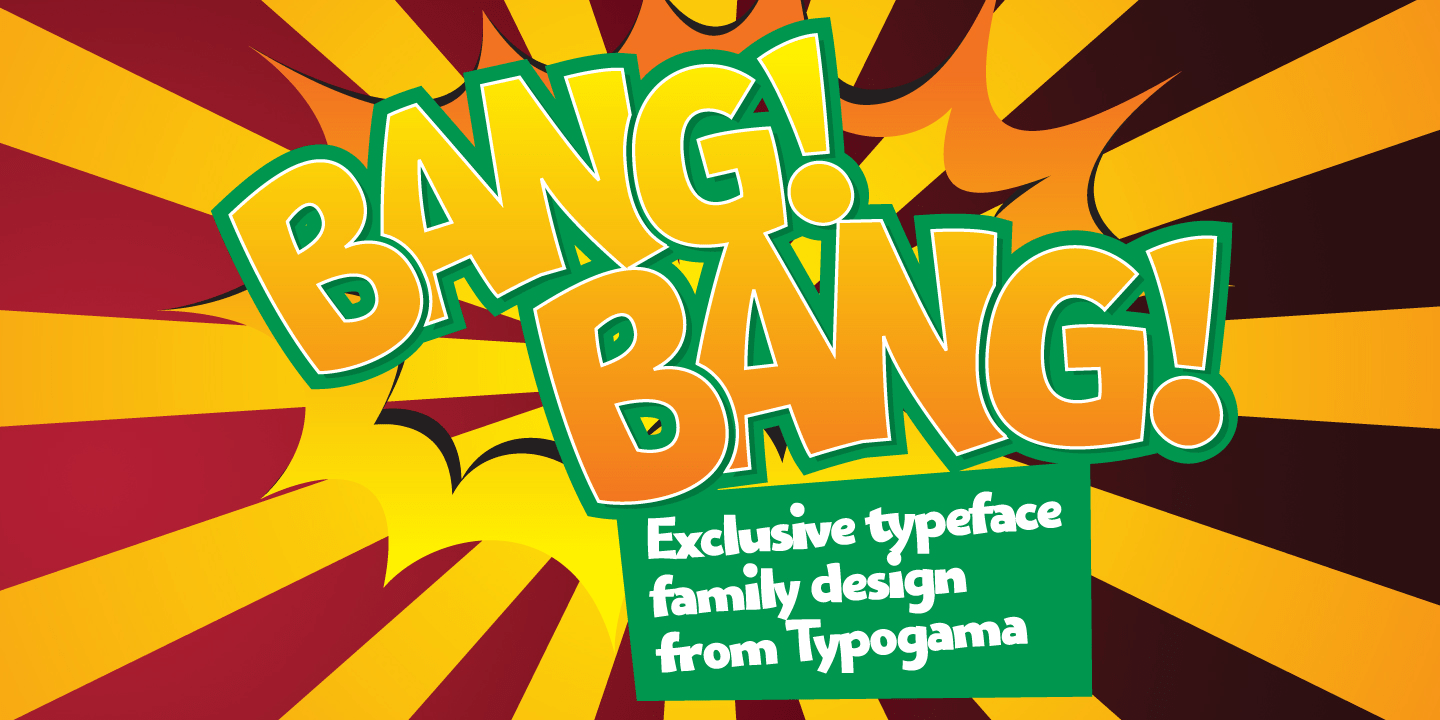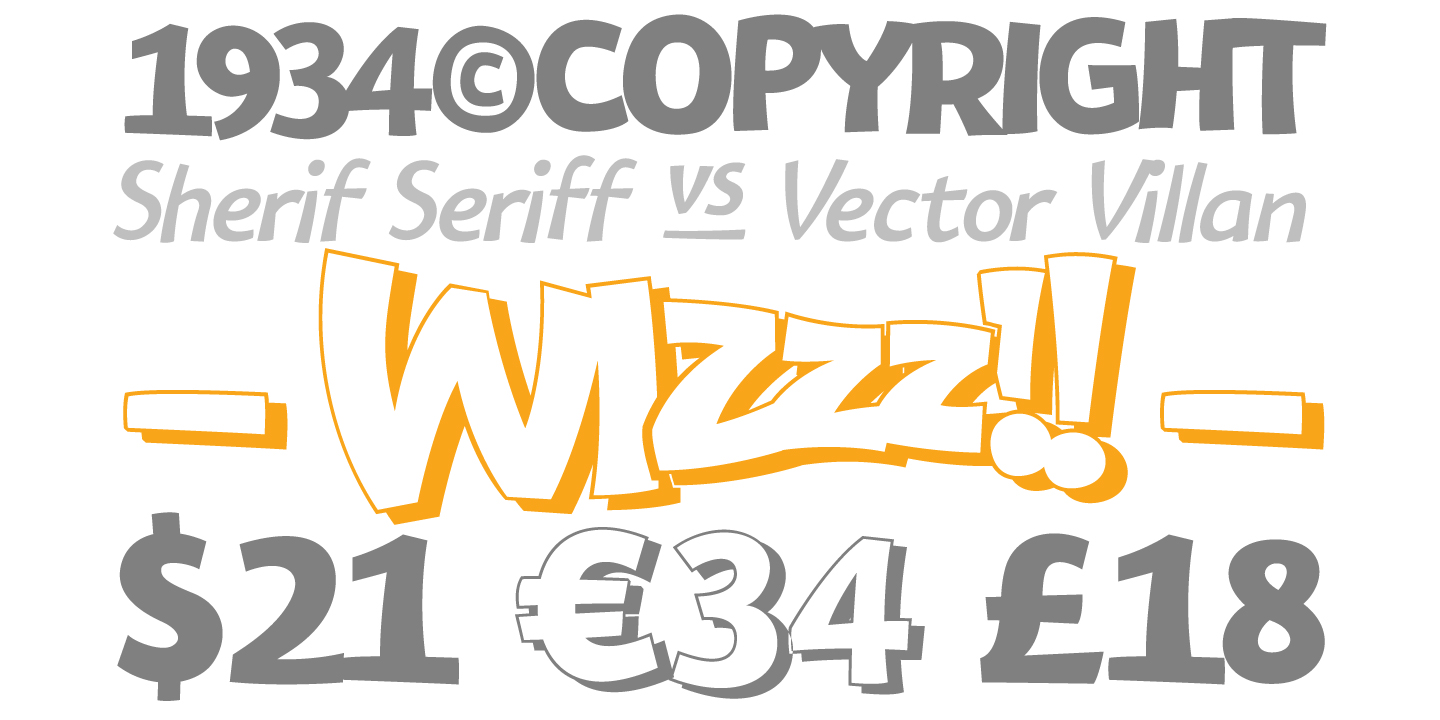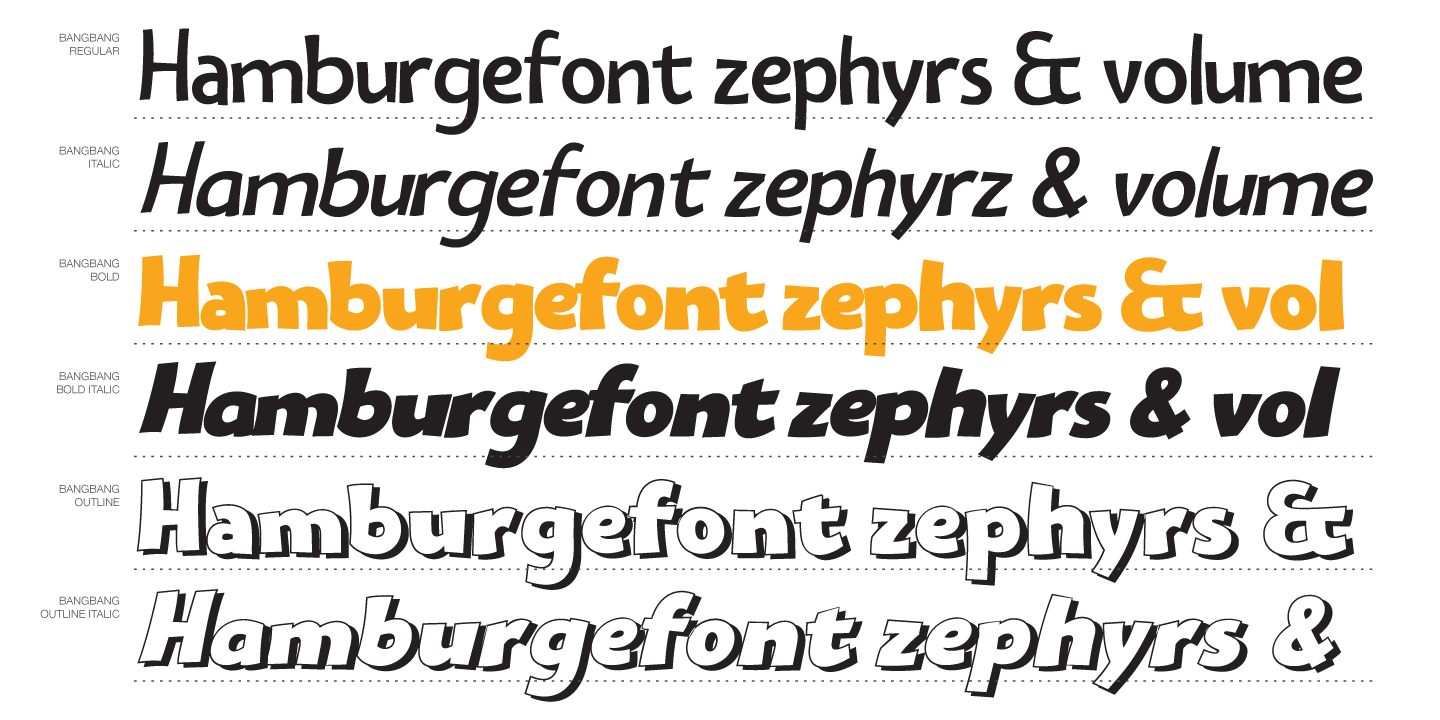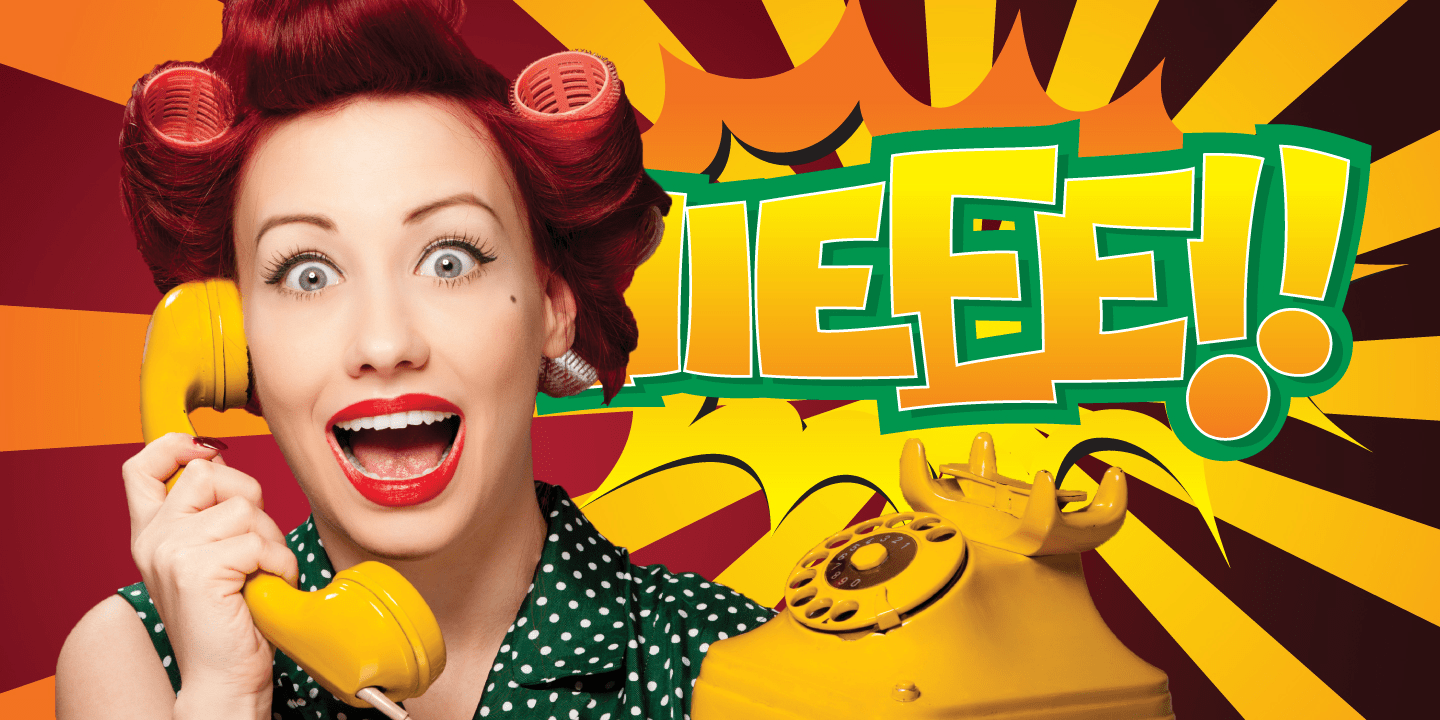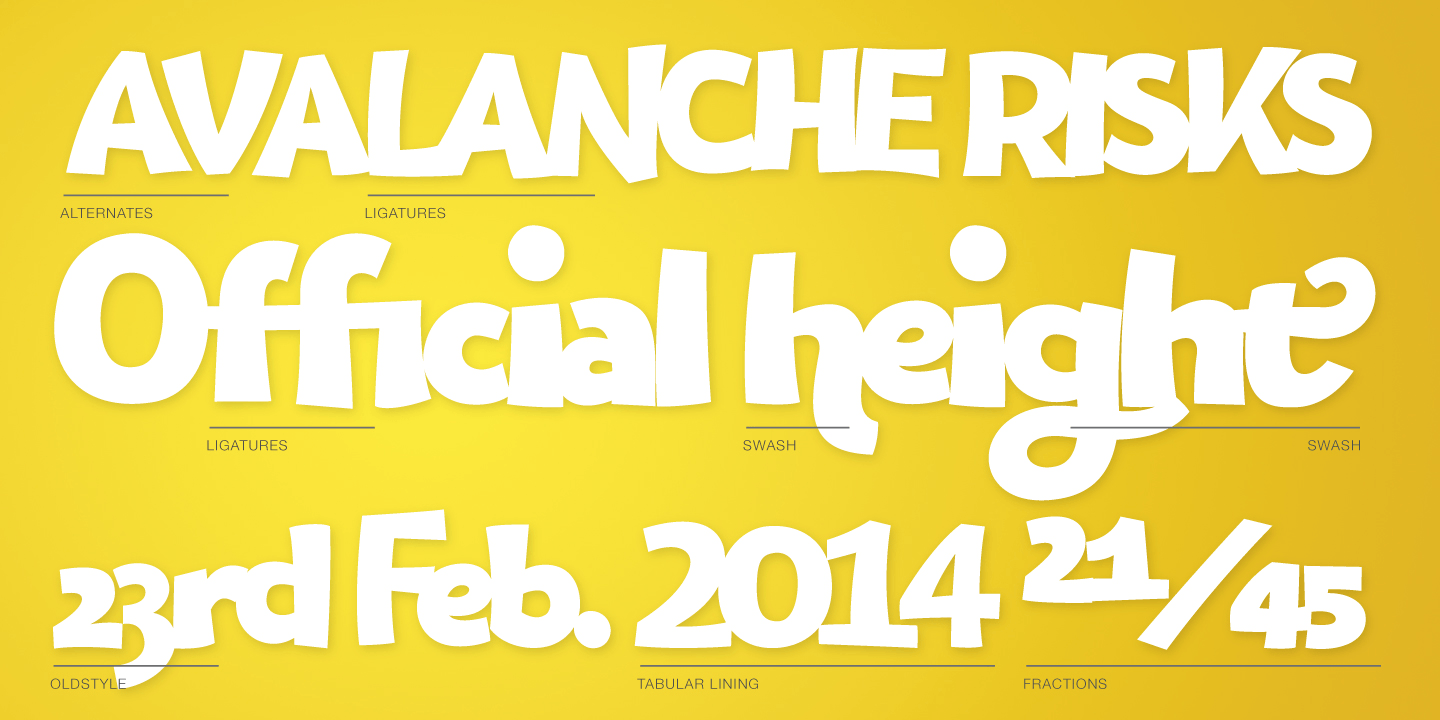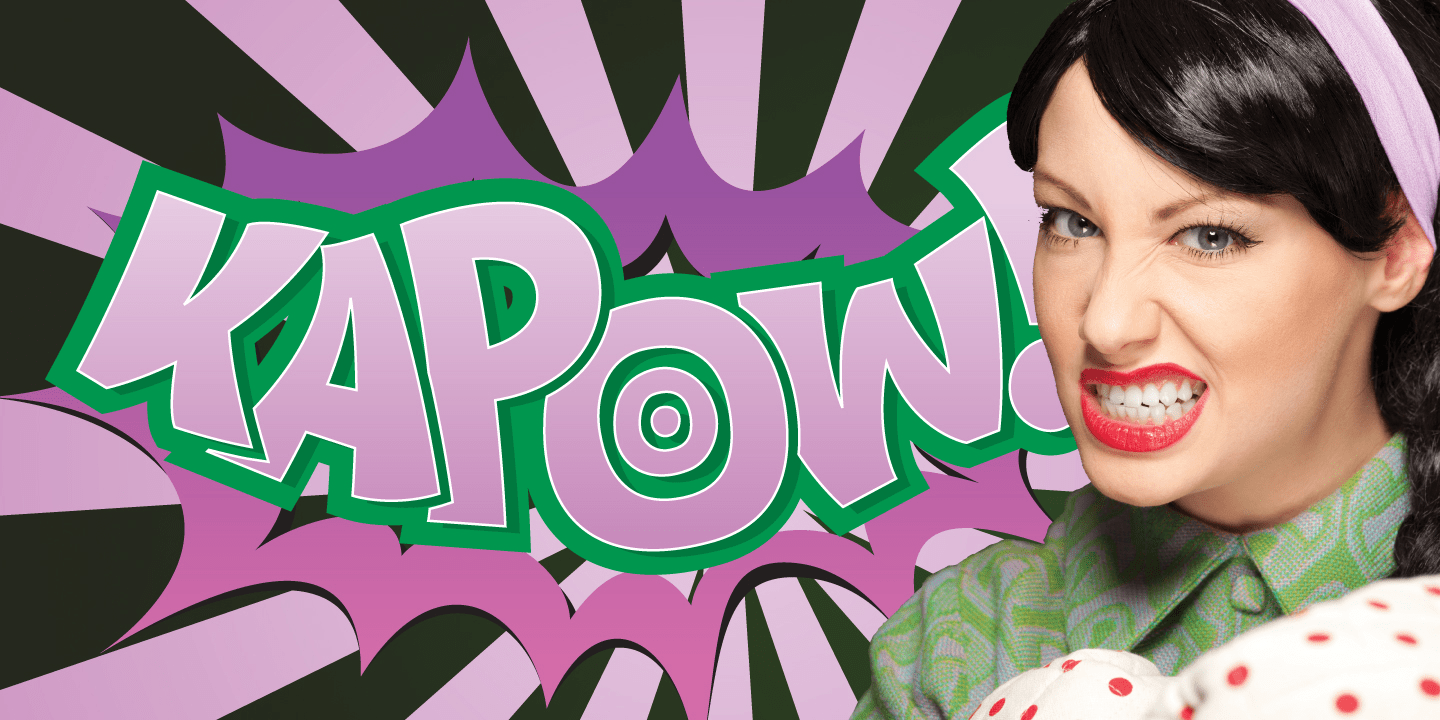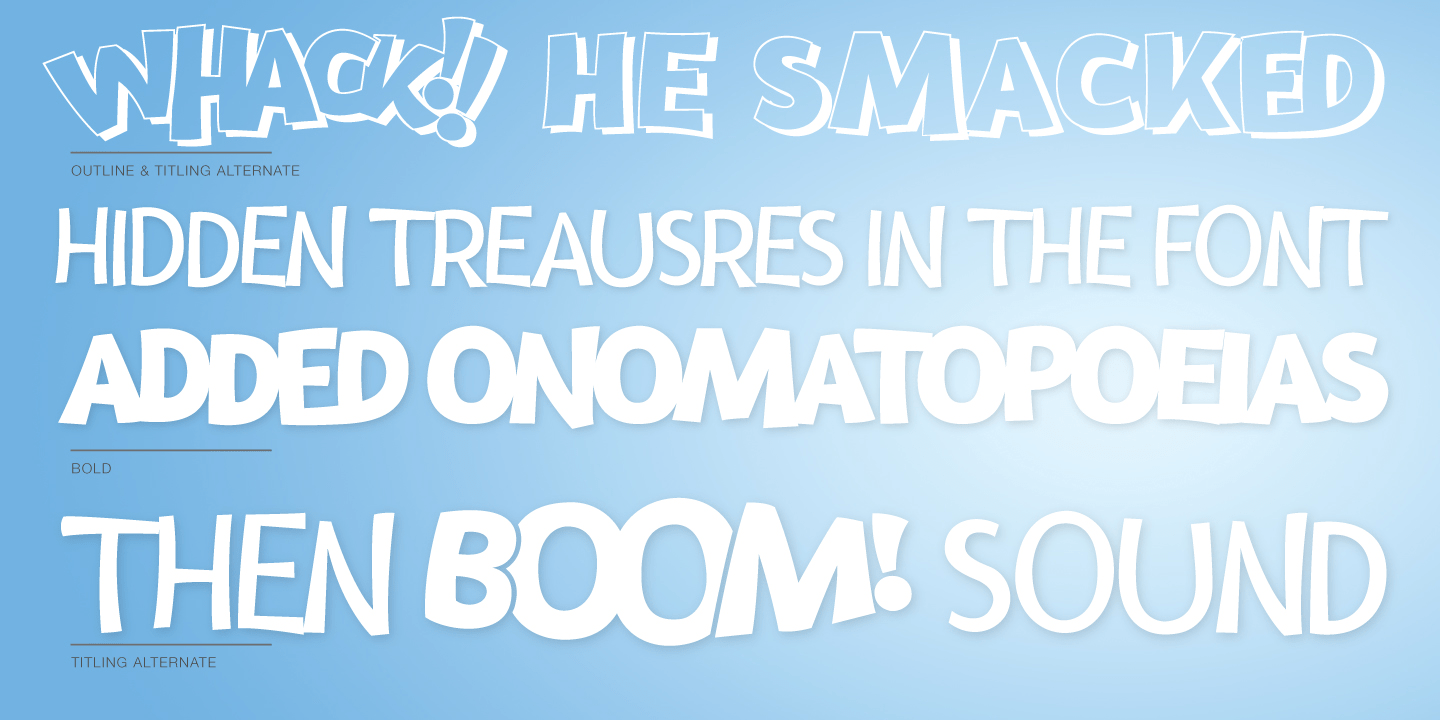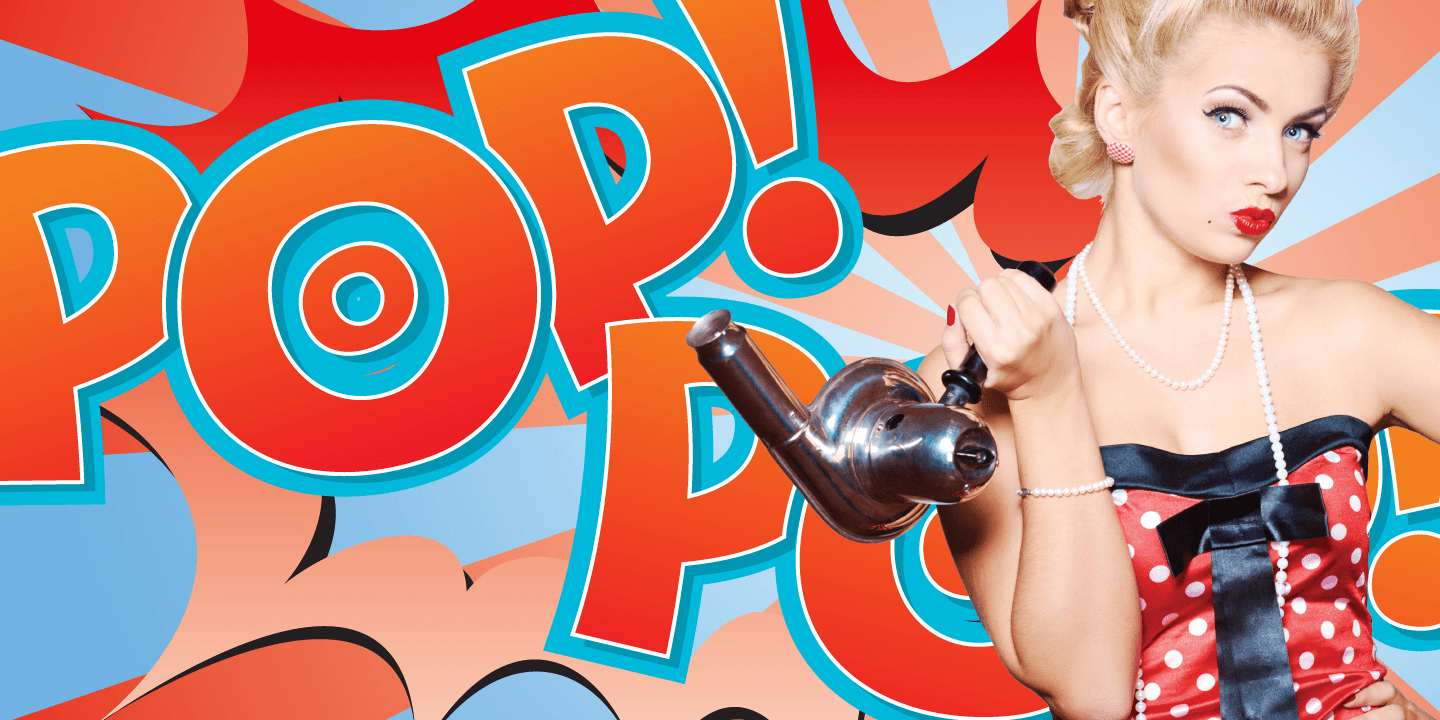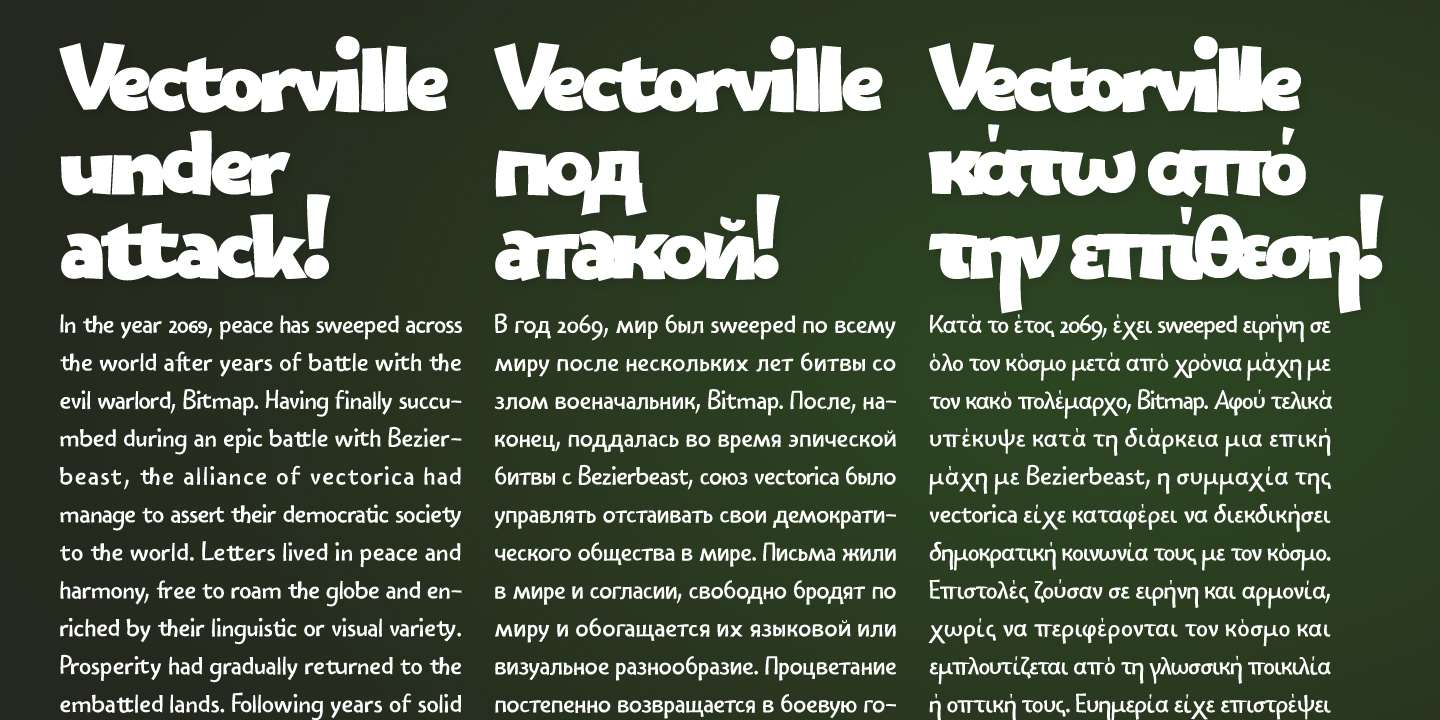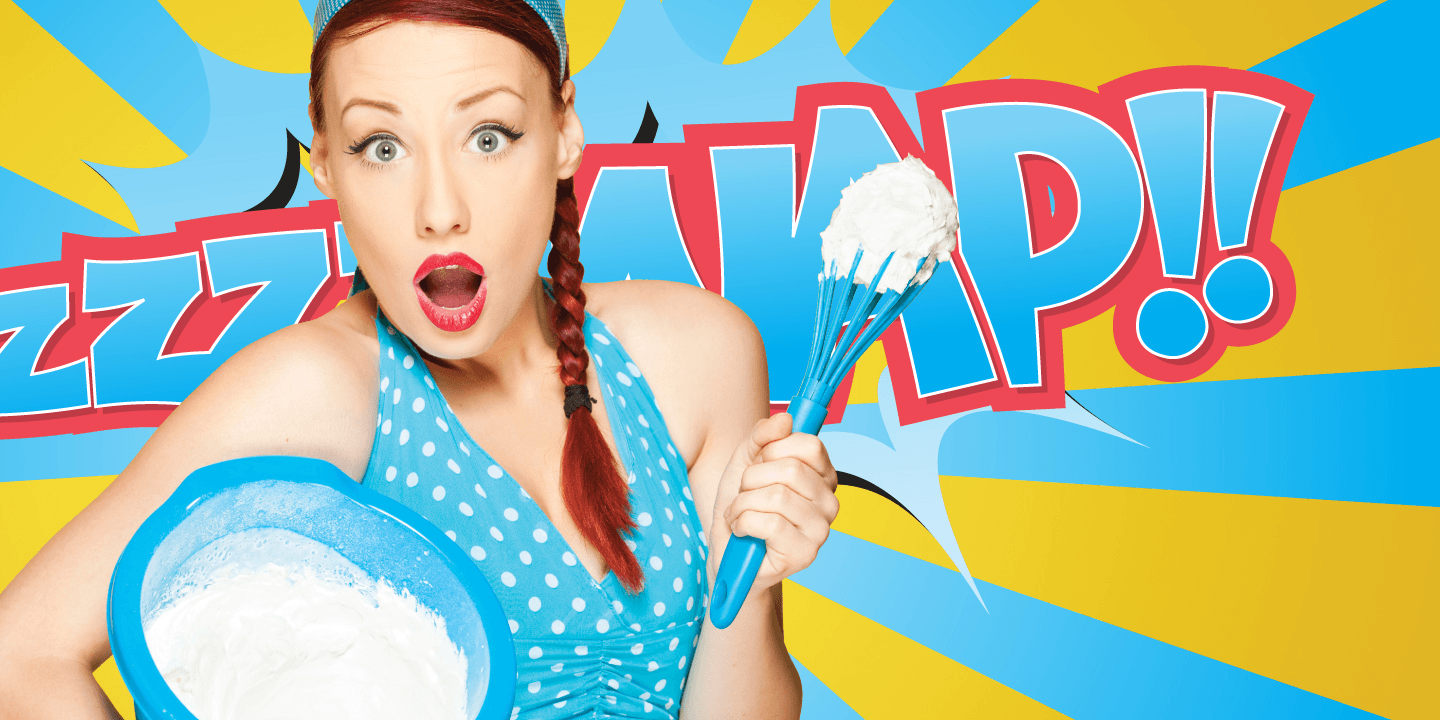
Bangbang
Font Family by Typogama
Bangbang is the most ridiculously serious comic font! Despite it's fun and laid back appearance, this typeface family is packed with language support & Opentype features, giving your fun designs a very serious tone!